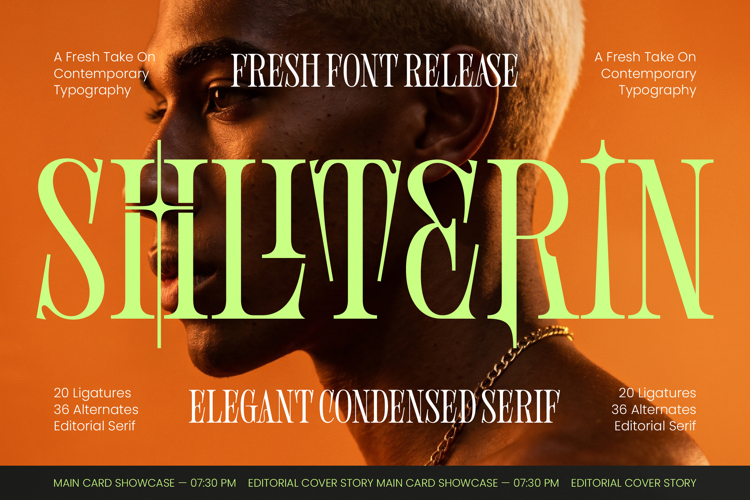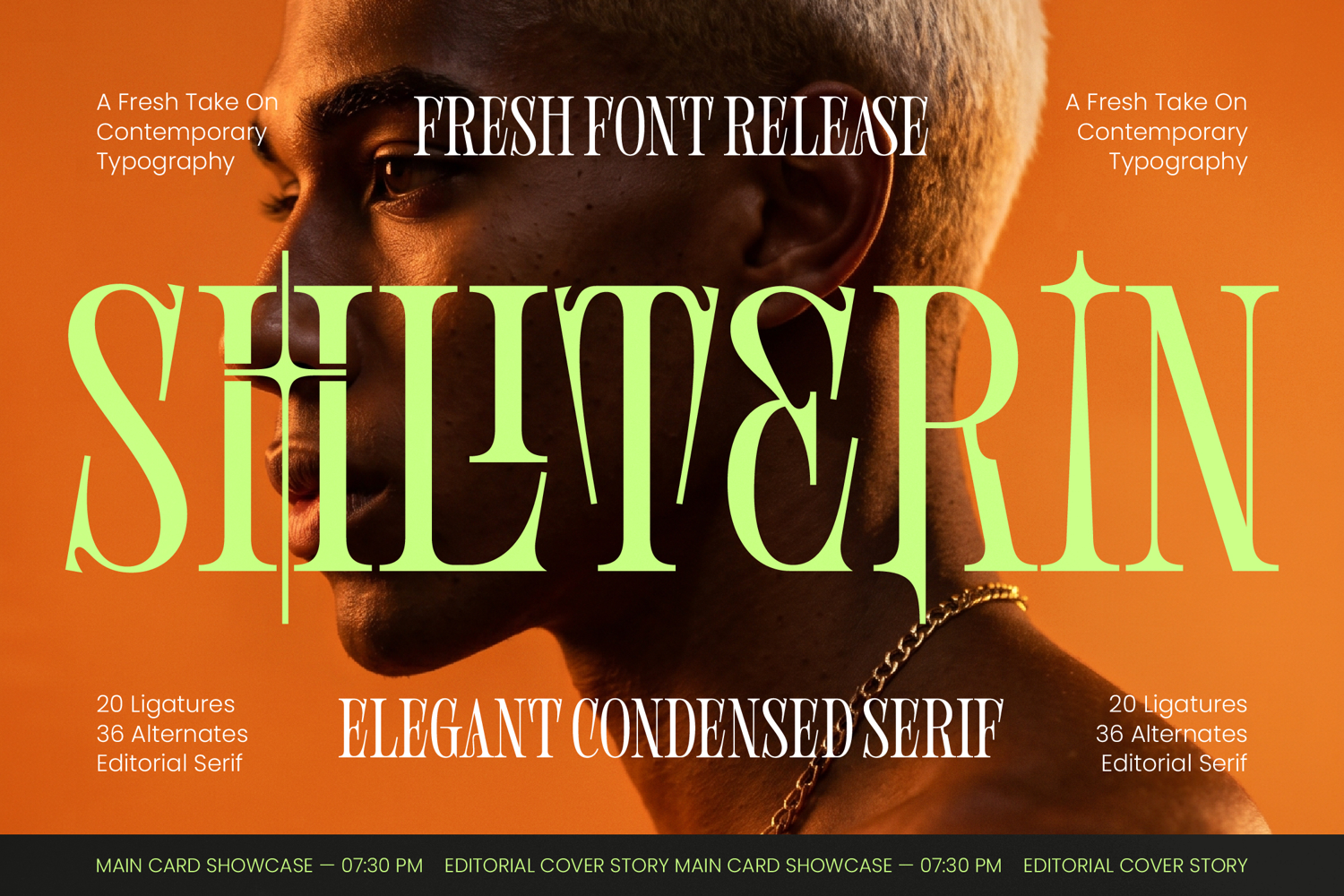
Shliterin Elegant Condensed Serif
Shliterin – Elegant Condensed Serif
Elevate your creative vision with a typeface that embodies high-fashion sophistication and modern elegance. Shliterin – Elegant Condensed Serif is a masterfully crafted editorial serif that combines high-contrast strokes with condensed proportions to create a commanding presence on any page. Its sharp serifs and contemporary flair ensure your text stands out with a premium aesthetic that is both timeless and cutting-edge.
Designed for maximum impact, this typeface is the ultimate choice for high-end visual communication and luxury branding. Shliterin – Elegant Condensed Serif is perfect for editorial layouts, fashion magazine covers, sophisticated packaging, and bold headlines that require a touch of class. Whether you are working on a boutique identity or a luxury product launch, this font provides the refined look necessary to captivate a discerning audience.